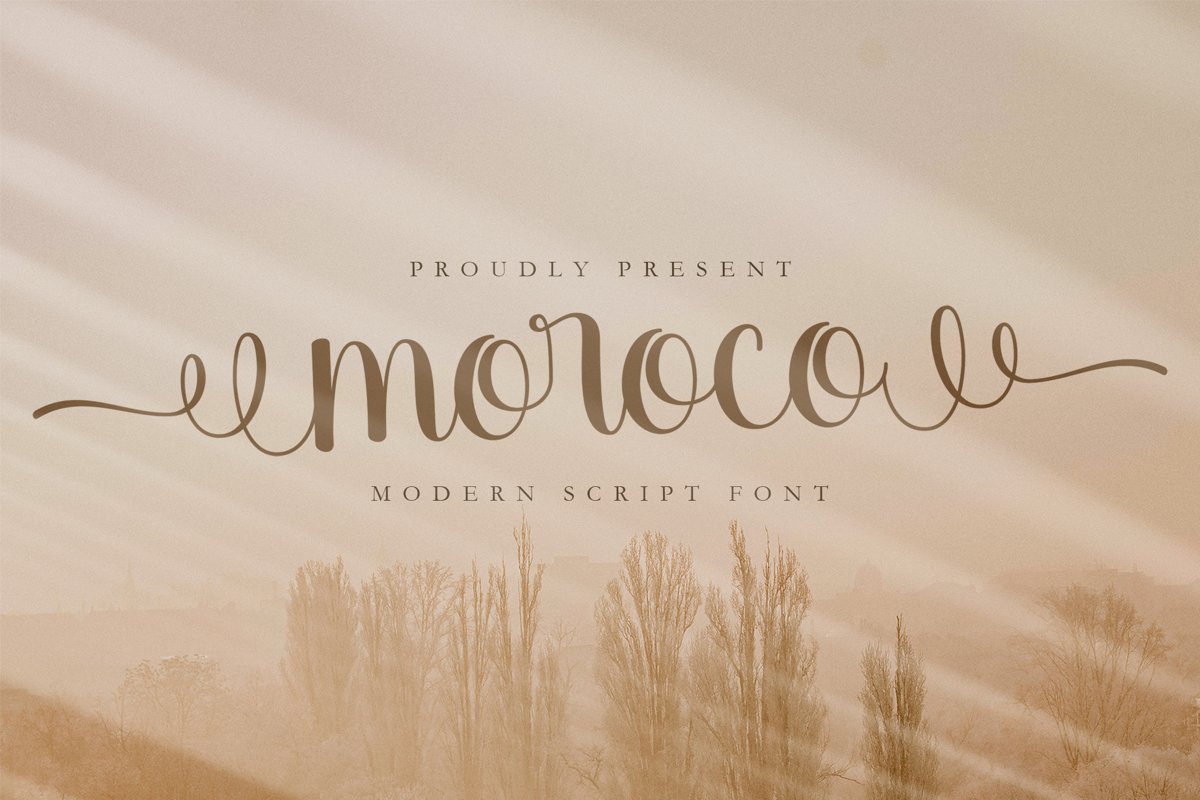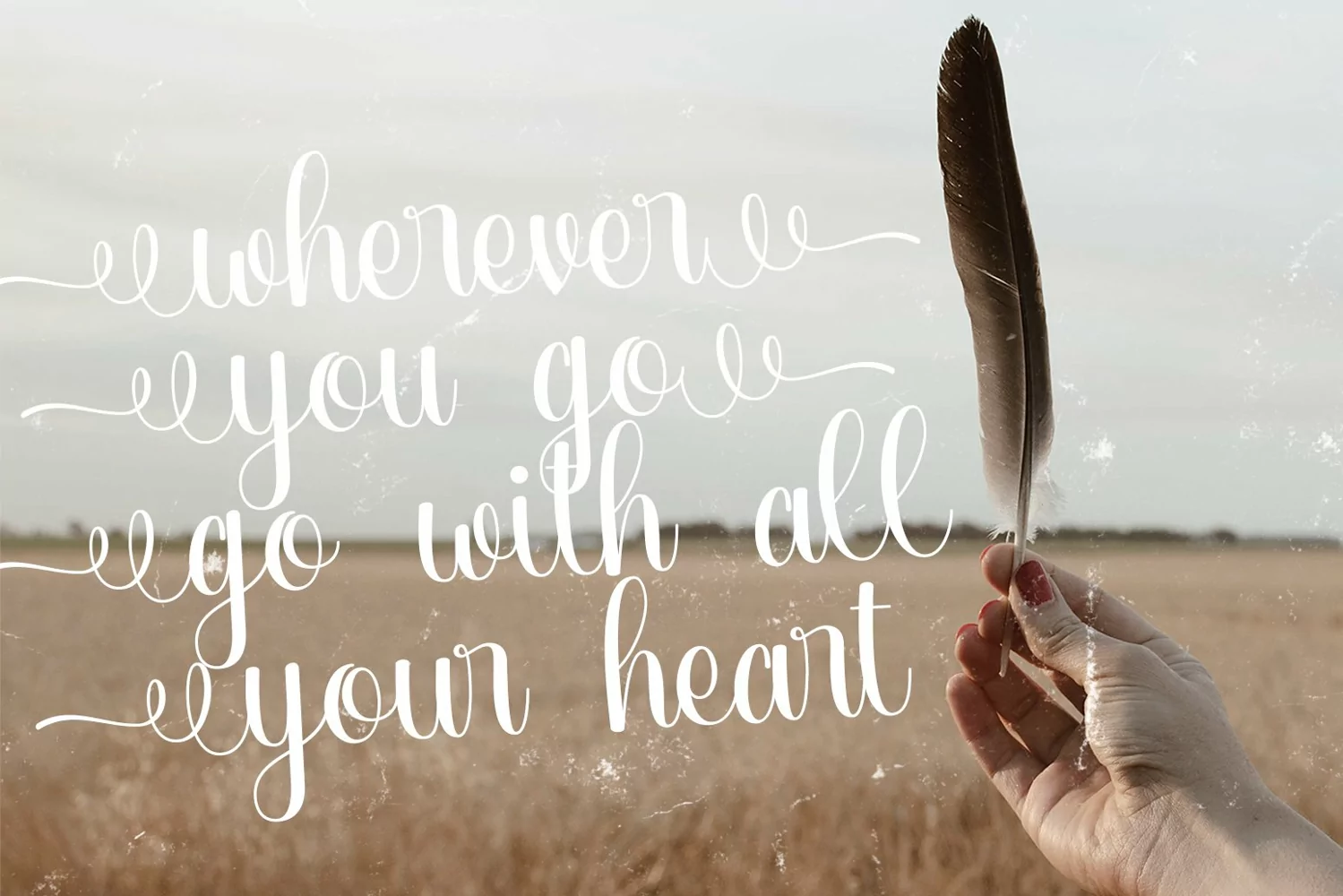
Moroco
Moroco is a Script Typeface. Perfect for display, quotes, print, T-shirt, business card, packaging, branding, wedding needs, crafting needs, header, tittle, merchandise, and many more.